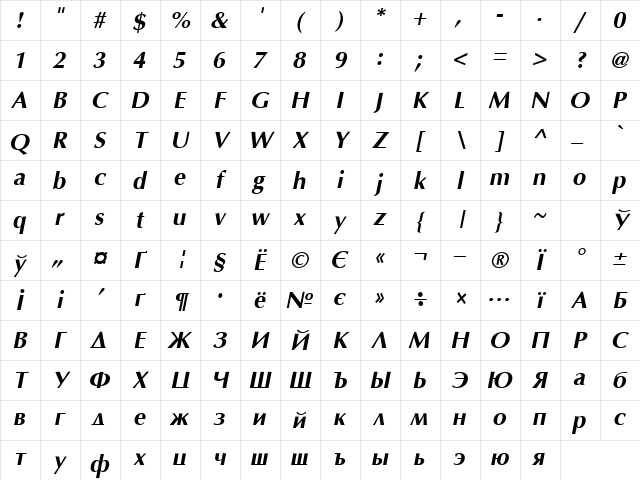
Optima Cyr Bold Italic
Complete Optima Cyr Bold Italic glyph index. Displaying only characters natively supported by Optima Cyr Bold Italic font.
Design Context for Optima Cyr
Optima Cyr is a composed and adaptable typeface that performs quietly and consistently across a wide range of design contexts. The slanted form adds forward momentum and visual energy. Its bold stroke weight gives it real presence on the page.
Pro Tip: Use Optima Cyr for emphasis, pull quotes, and subheadings where its slanted energy can add rhythm to the layout.